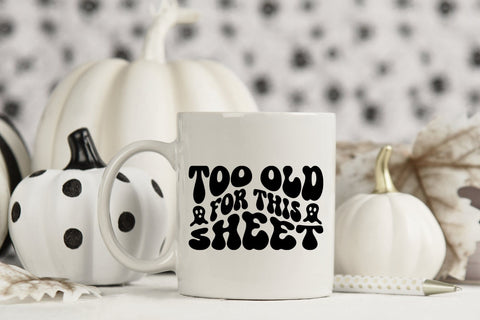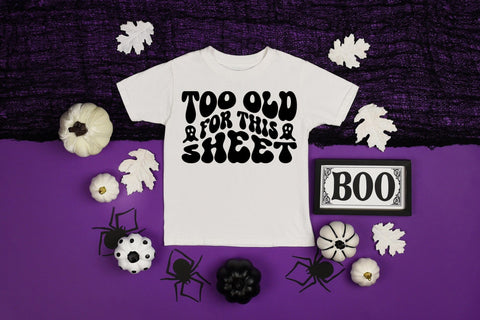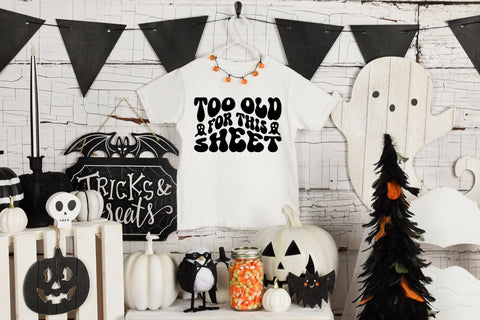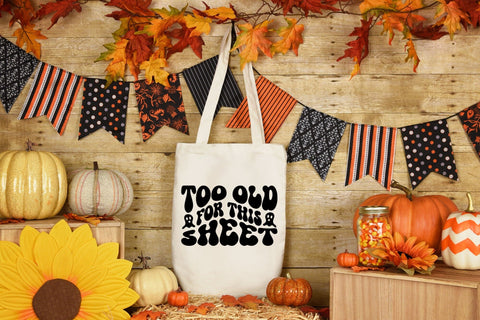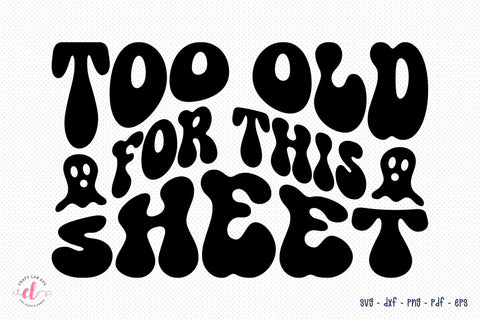
Too Old for This Sheet, Retro Halloween SVG
Add a touch of retro charm to your Halloween crafts with our spooky SVG design. Perfect for creating hauntingly delightful projects. You can use it for making t-shirts, mugs, tote bags, pillows, and much more!